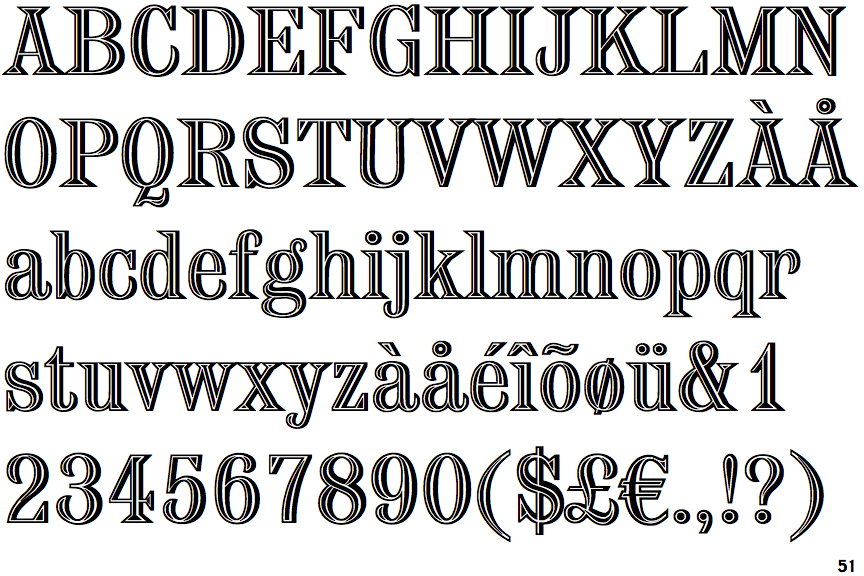
Here Is The Chisel Font That Has The Classic And Elegant Layout That You Should Use In Making The Professional Design.
This Font Style Has Been Made With An Attractive Bold Font Appearance.
The Font Chisel Is Also Perfect For Branding Projects,.